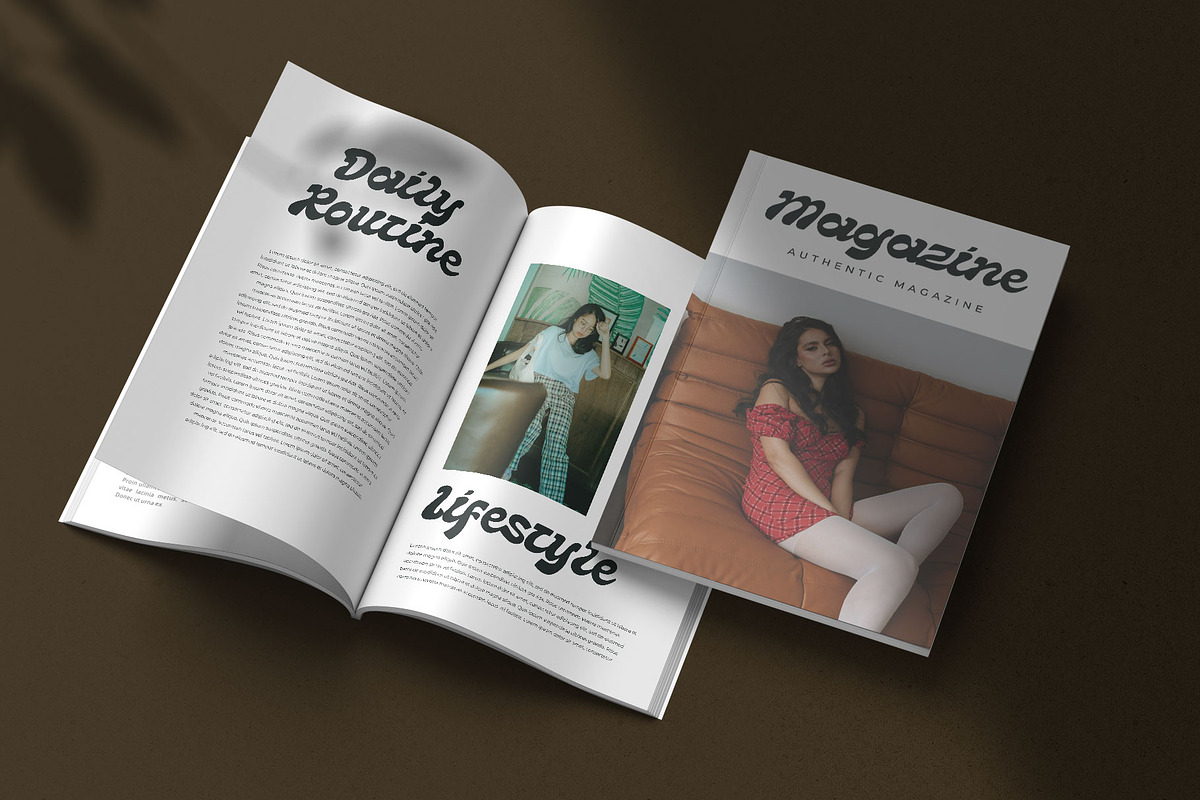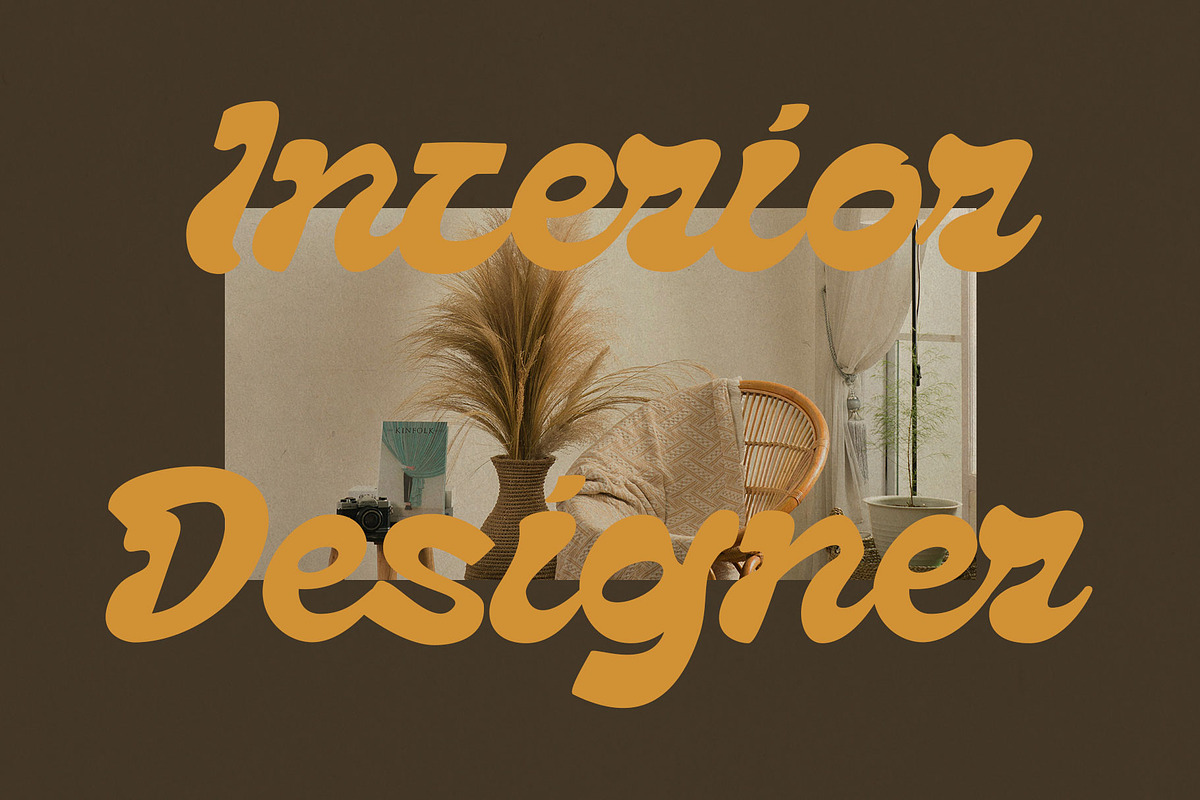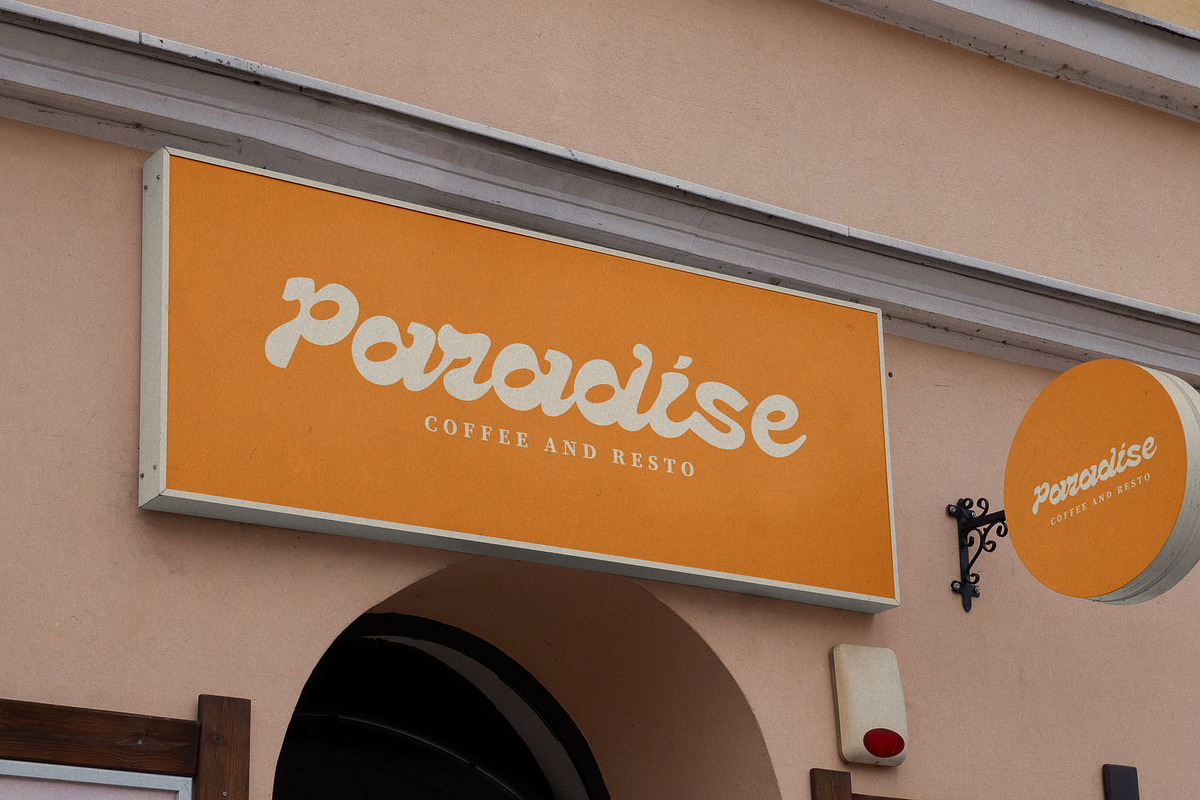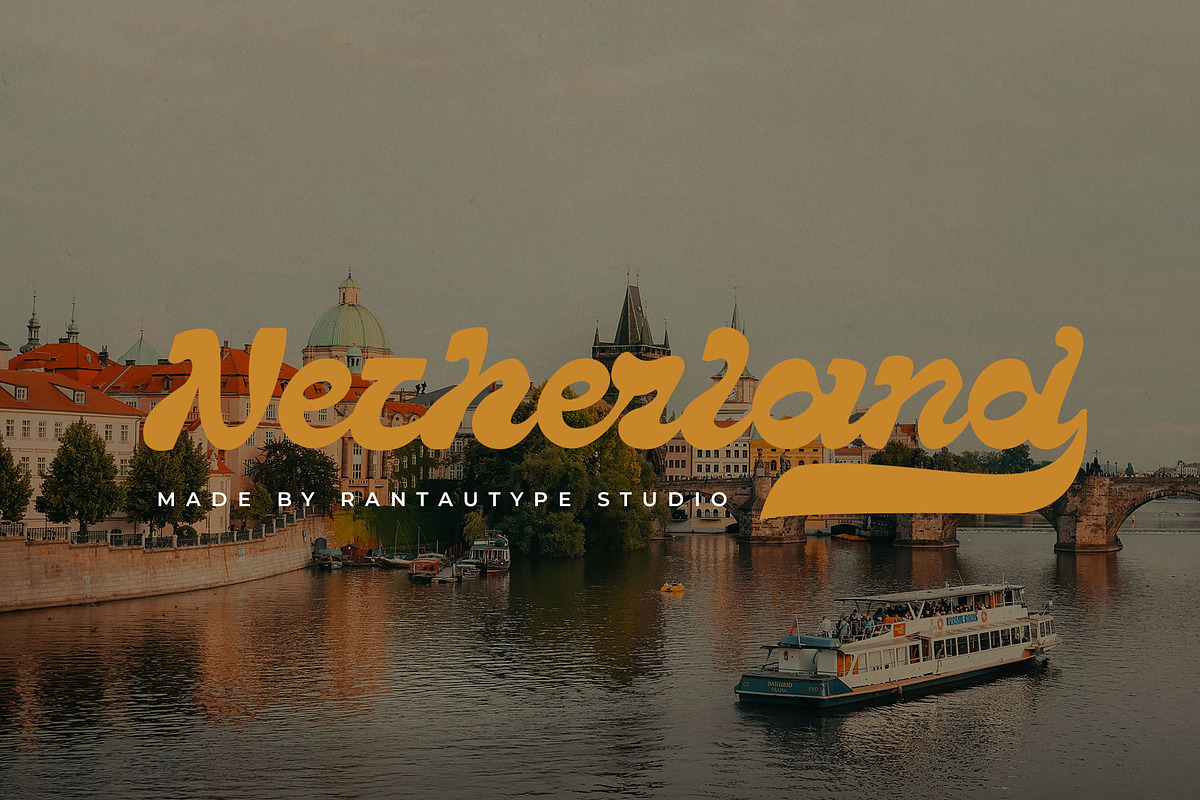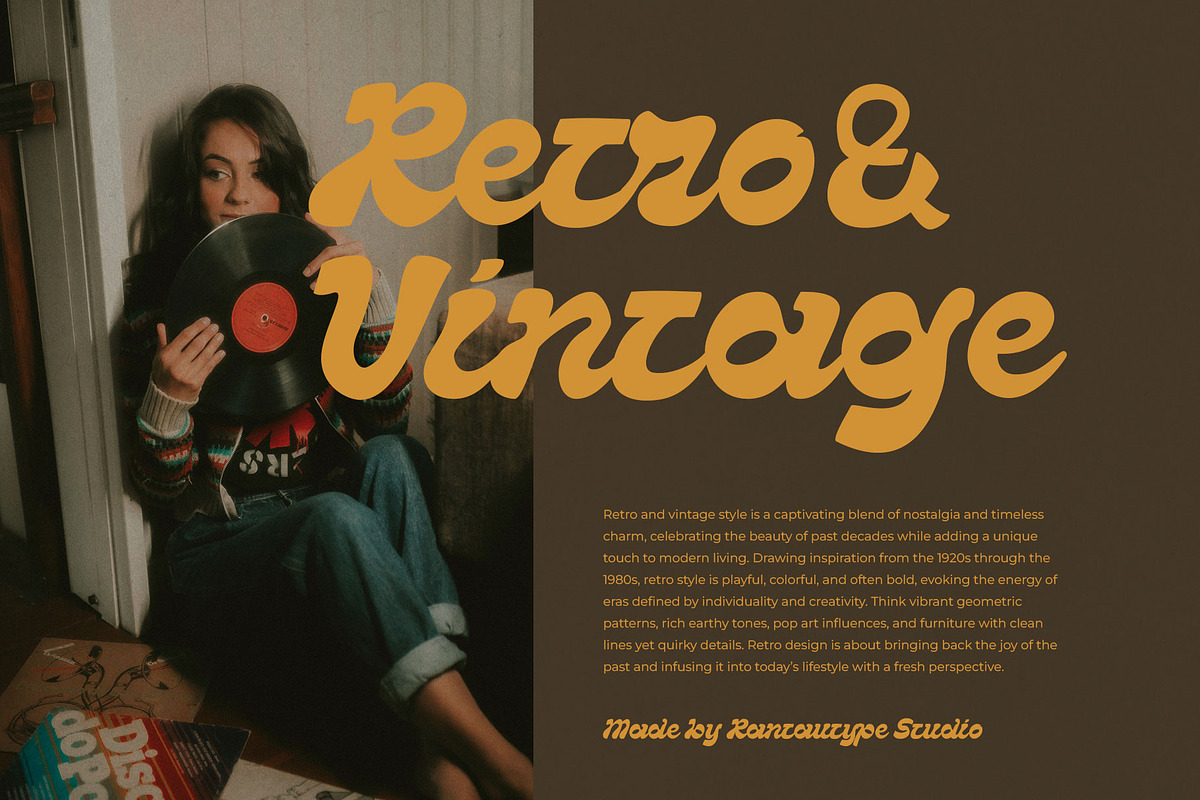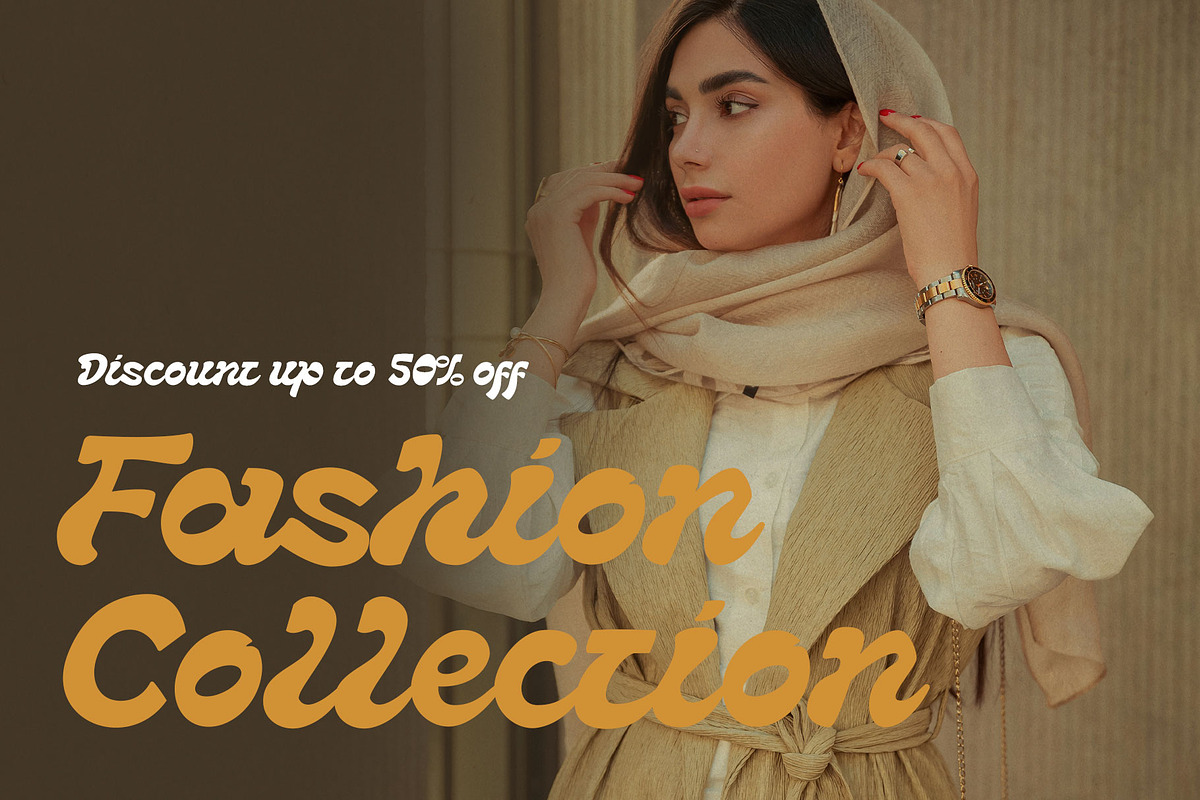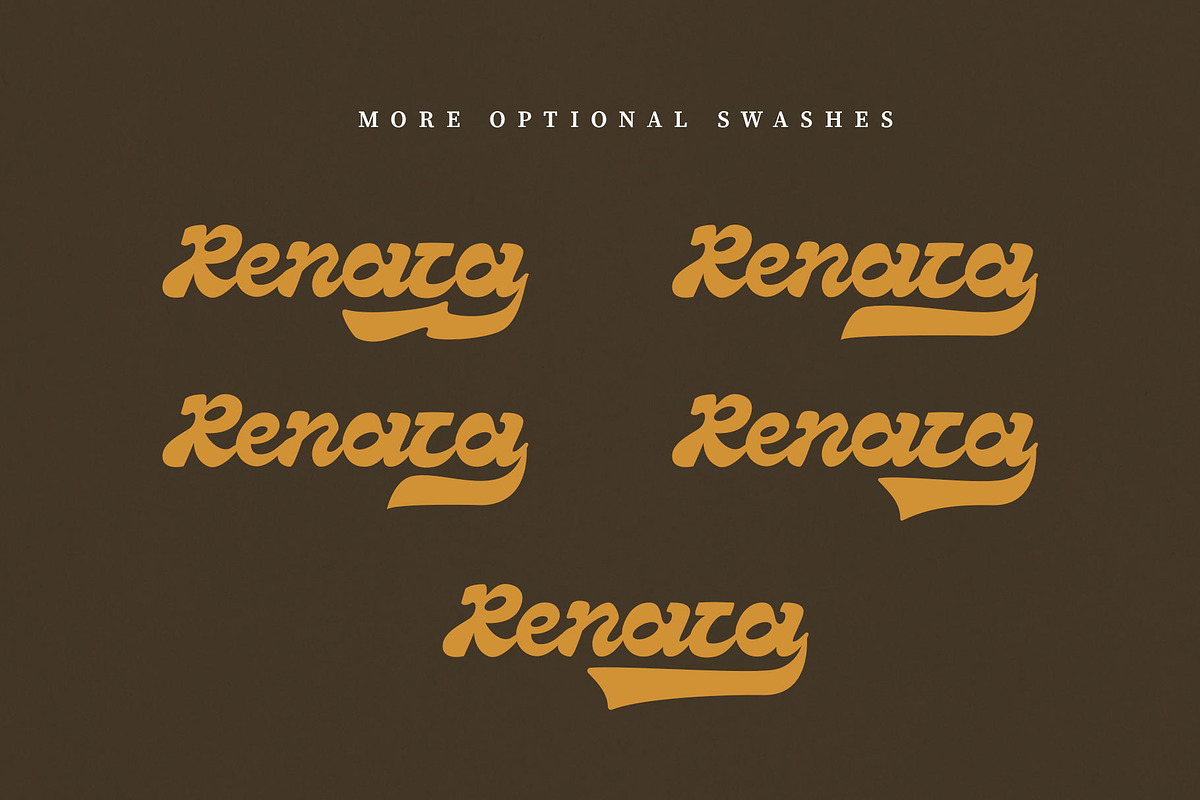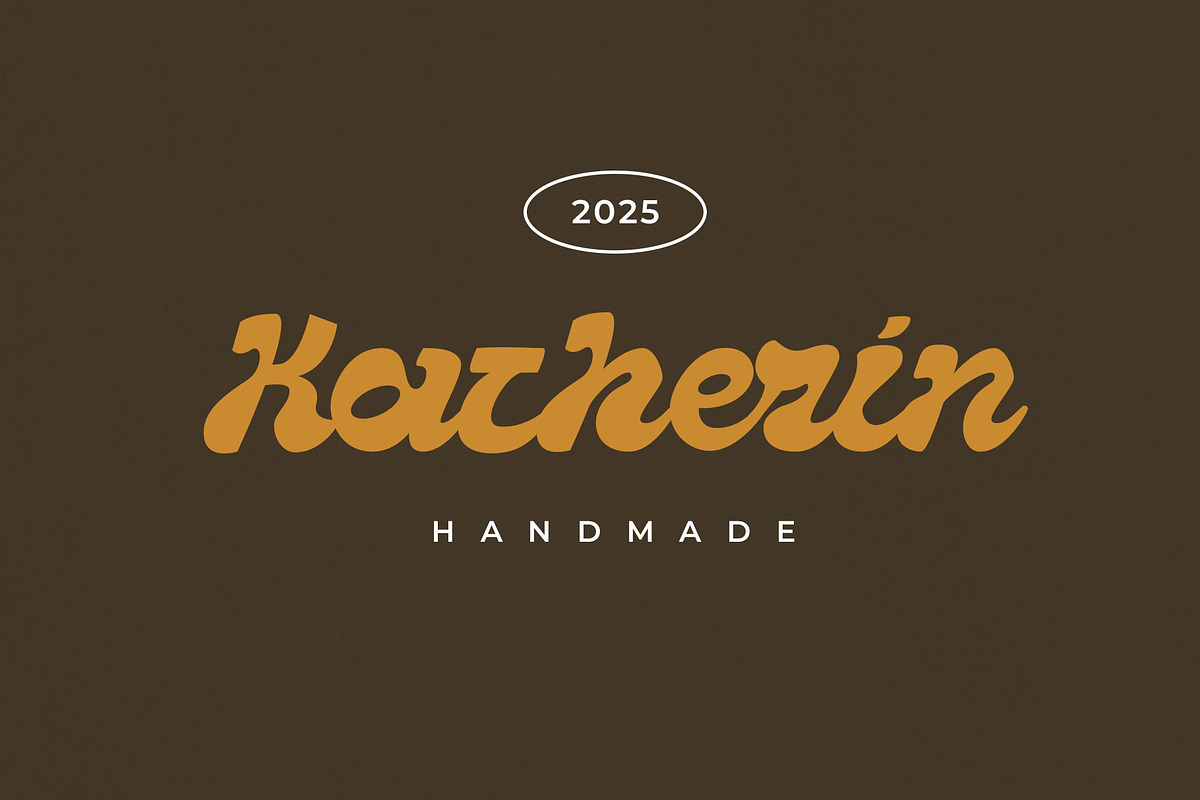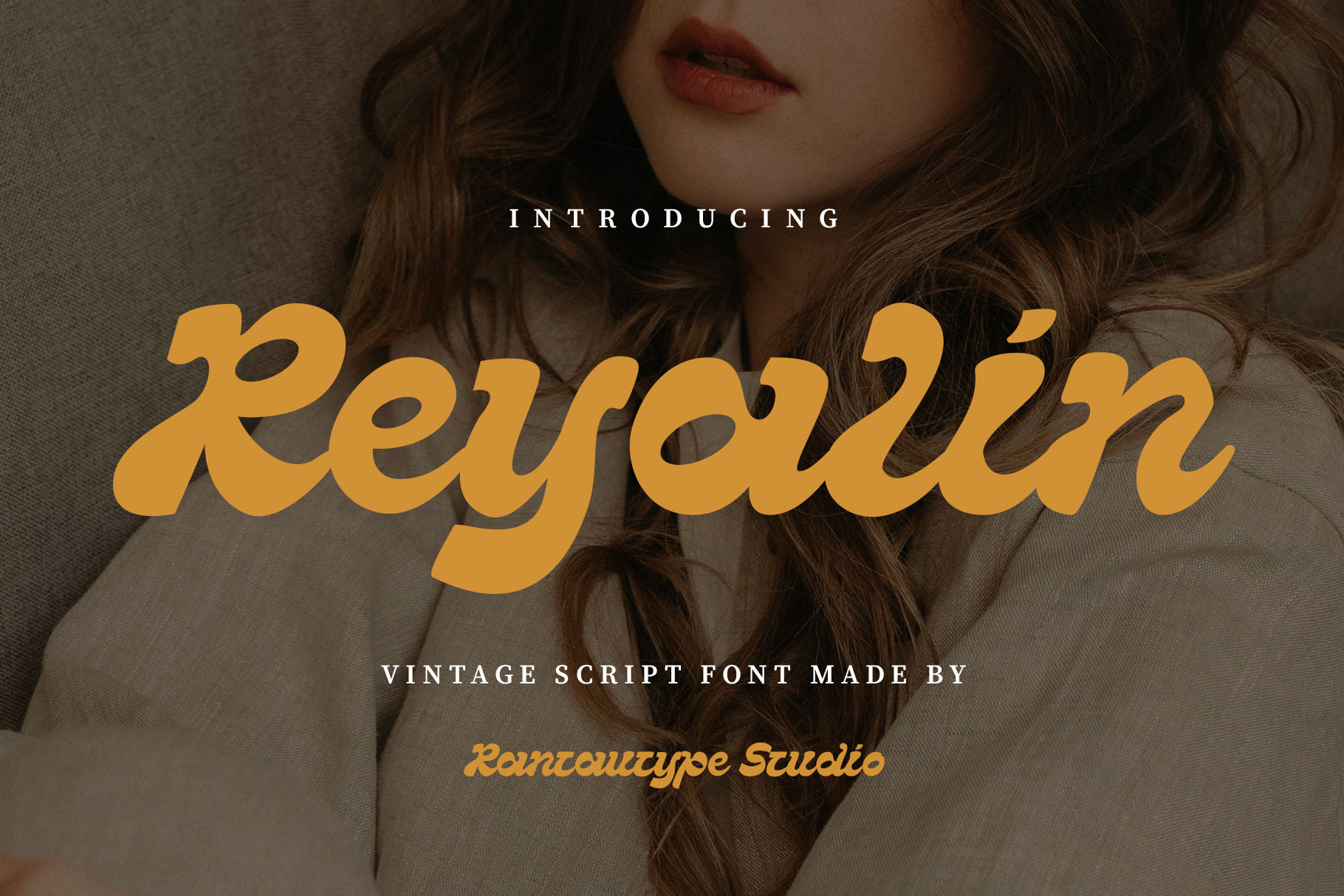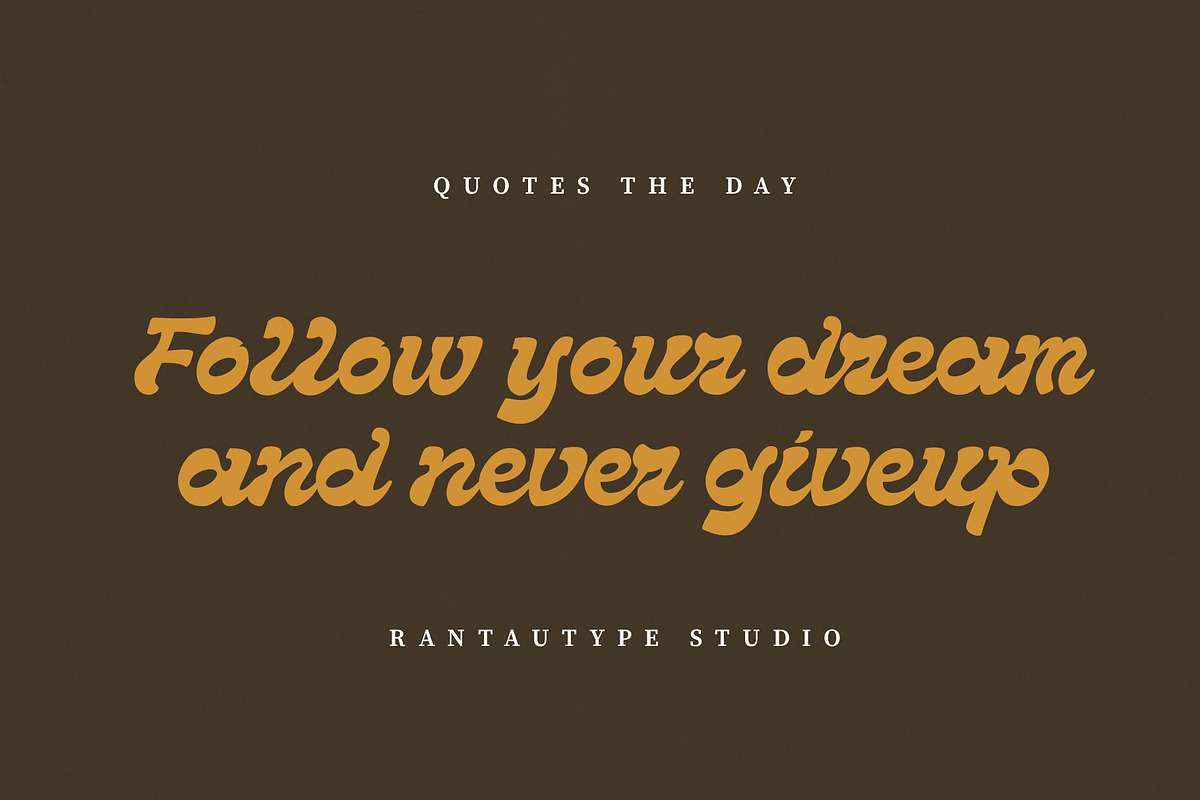
Reyalin Vintage Script Font
Reyalin is vintage script font inspire by old poster with nostalgic look. Reyalin come with contrast bold character to make a nostalgic look. Grecina is a perfectly choice for any creative endeavor, creating, modern, lifestyle design such as logotype, title, cover, branding, invitations, wedding designs, display and magazine, social media posts, advertisements, printed quotes, product packaging, corporate brand, product designs, labels, photography, watermarks, special events and any other project with retro touch.
- Alternate and ligature